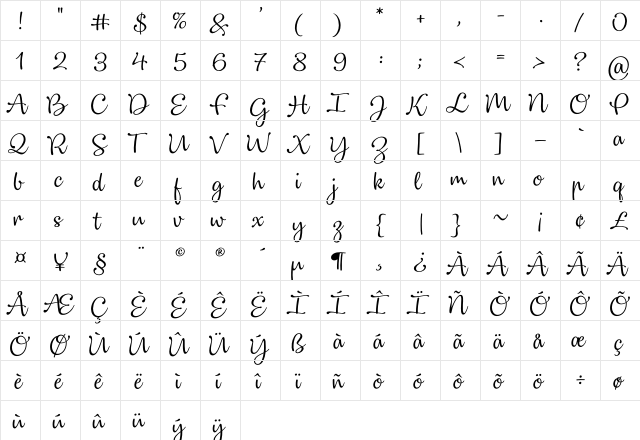
Dulcelin Regular
| Foundry | Youssef Habchi |
| Designer | Youssef Habchi |
Design Context for Dulcelin Typeface
Dulcelin is a composed and adaptable typeface that performs quietly and consistently across a wide range of design contexts.